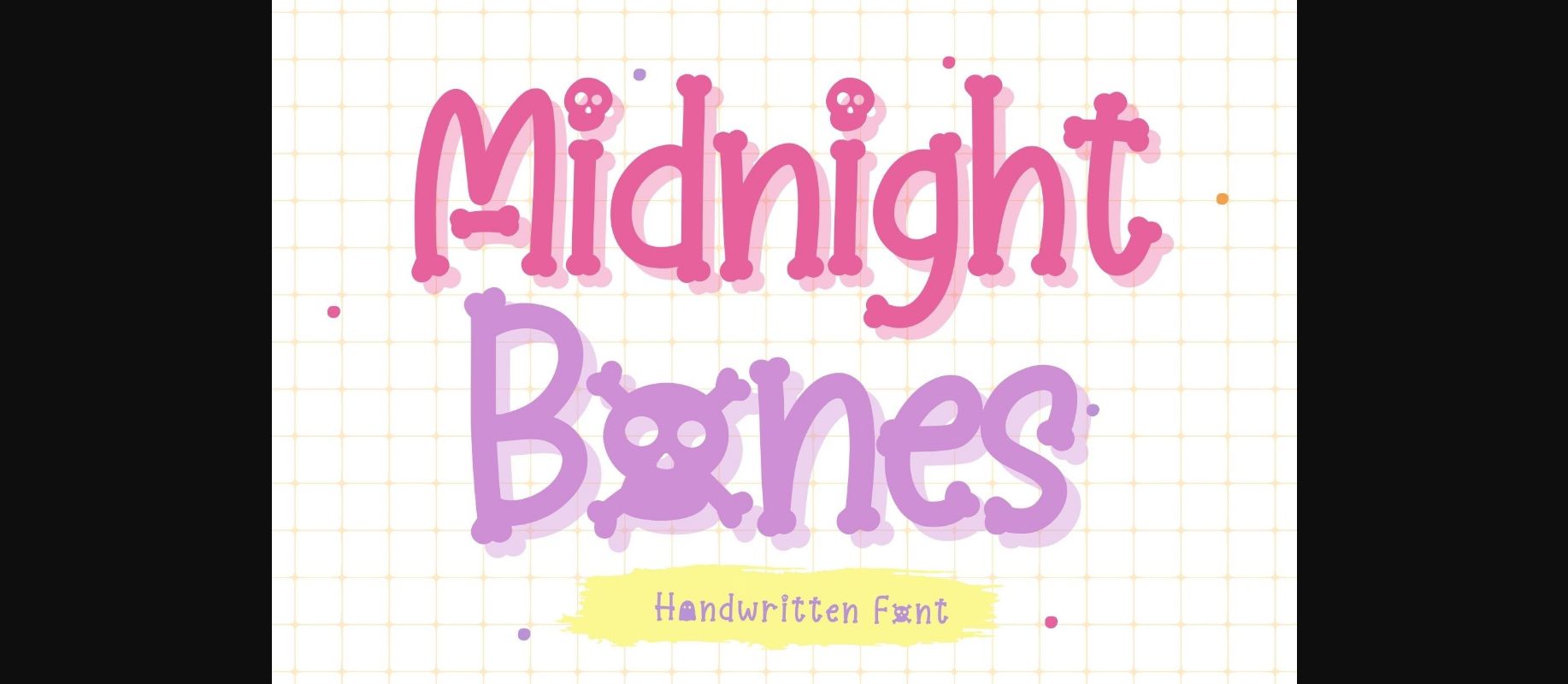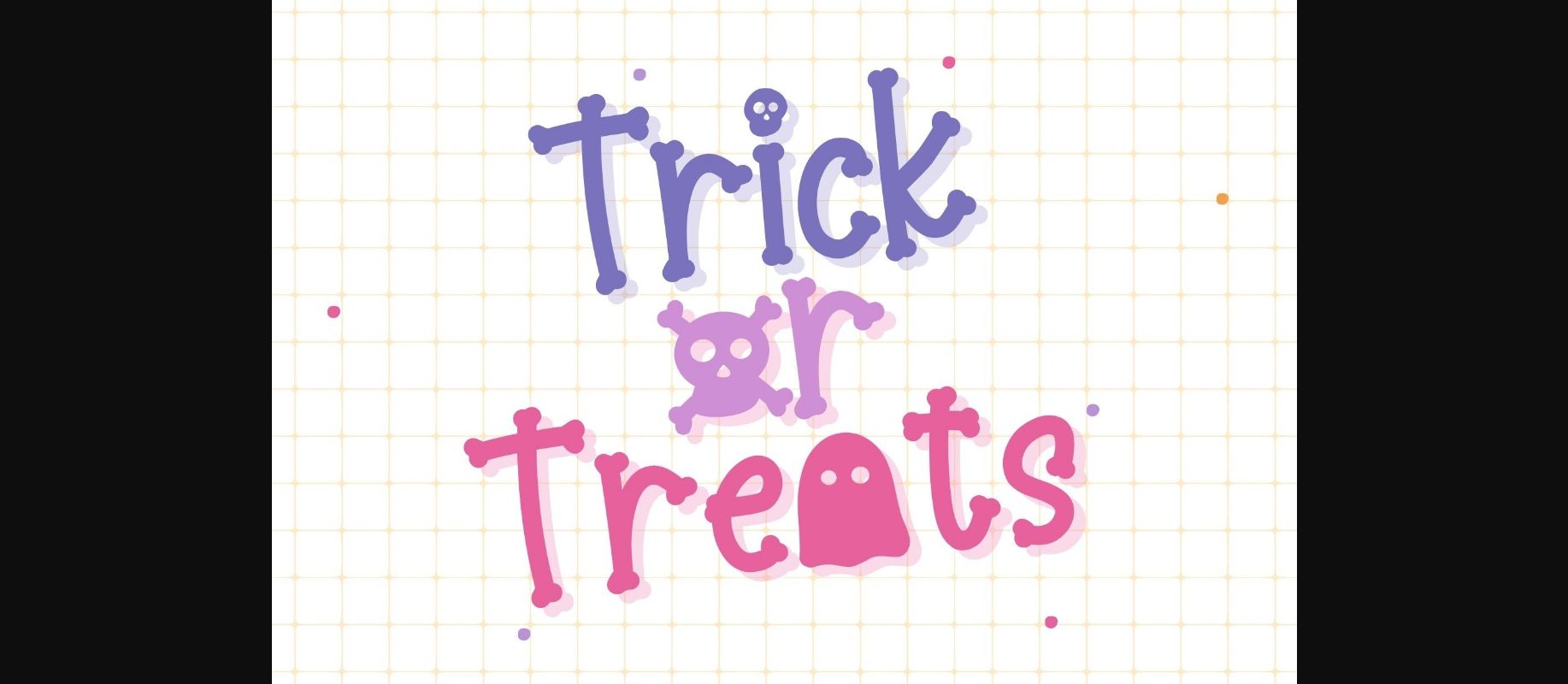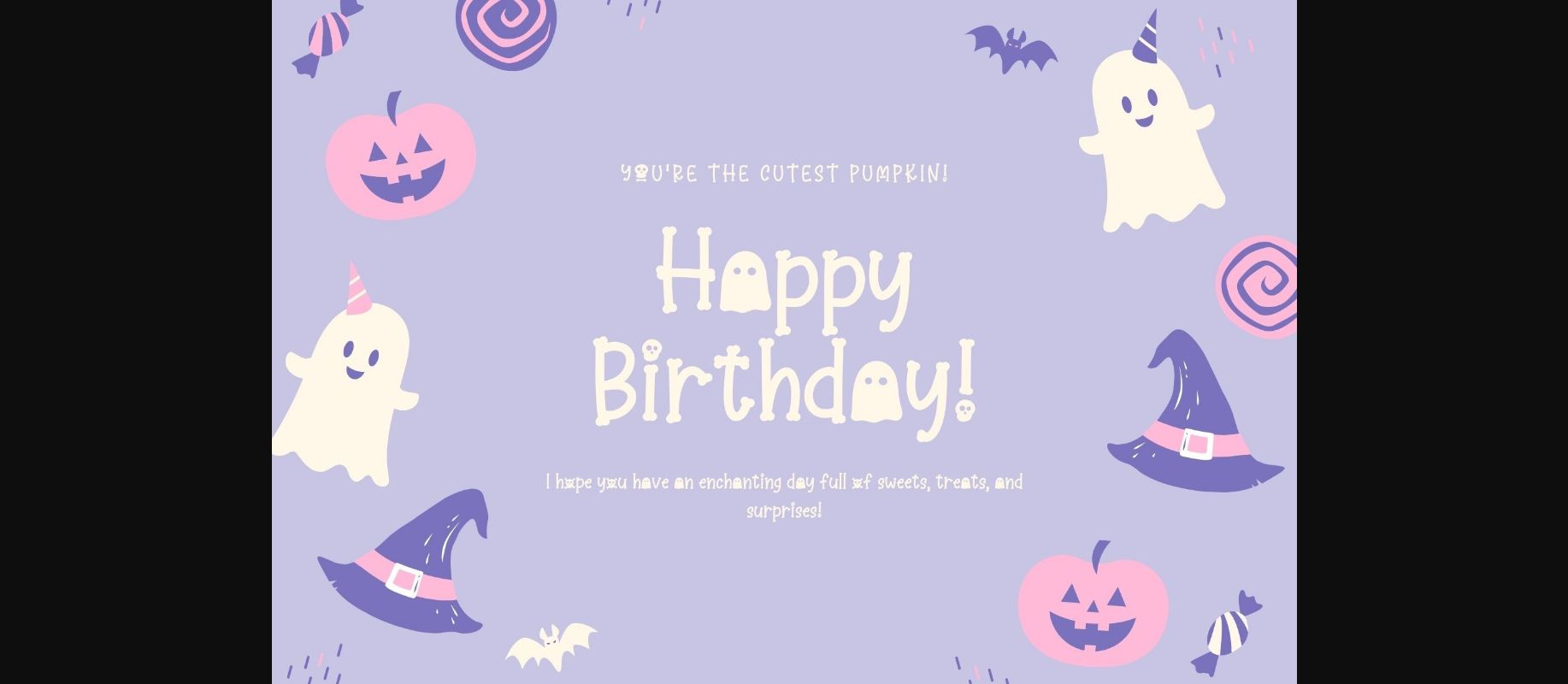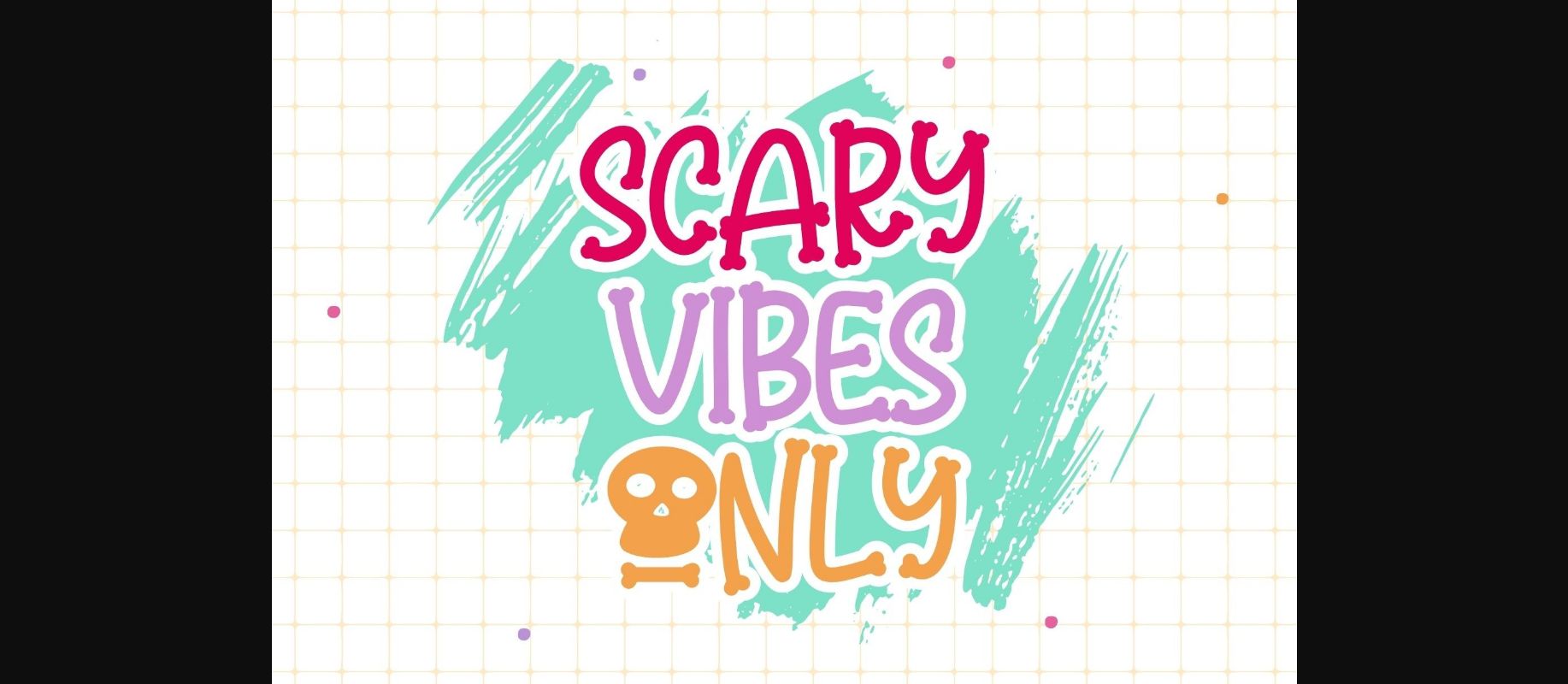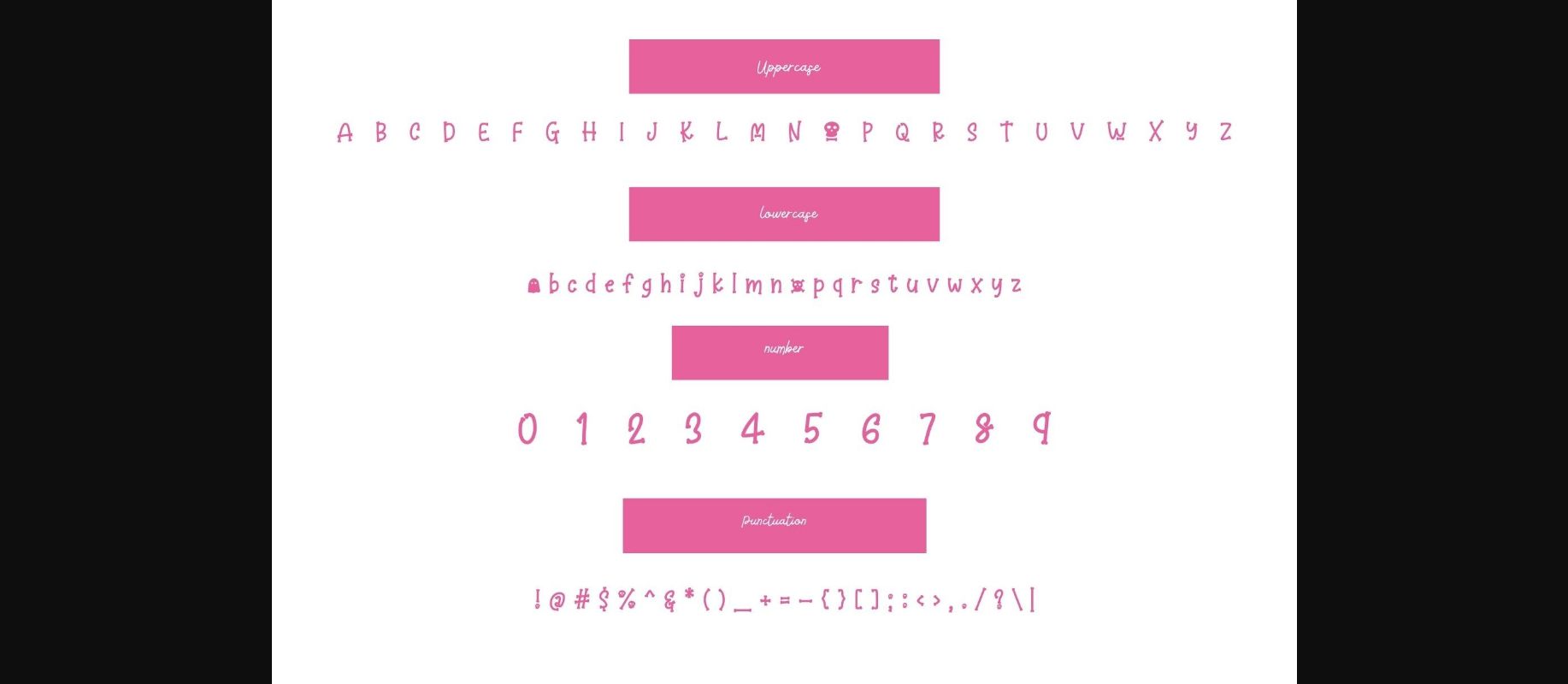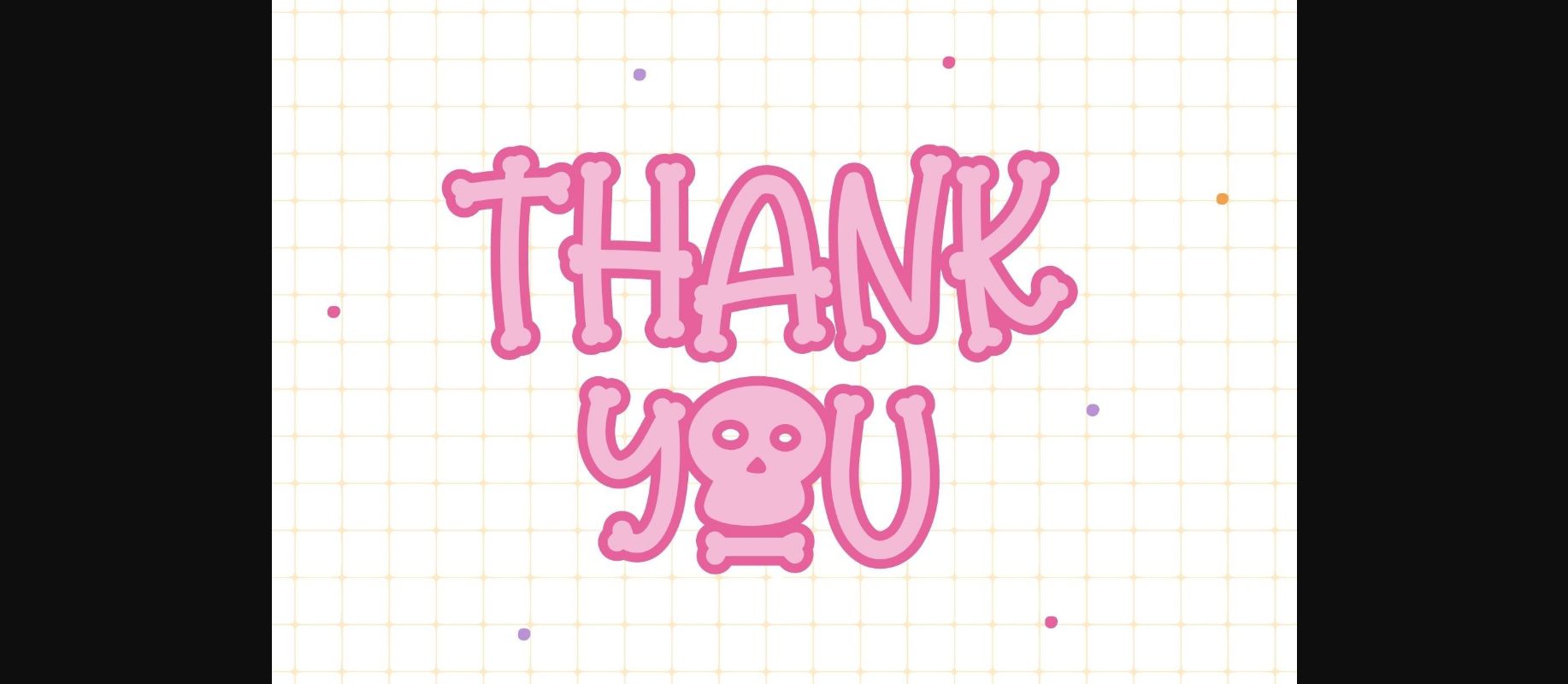
About Midnight Bones Font
Midnight Bones is a cute halloween font. It embodies playfulness and authenticity and is the perfect choice for all your favorite projects such as blog posts, logos, branding, ads, invitations, greeting cards, planners, photo albums, decorations, and more. Add it to any of your designs, and enjoy the results!